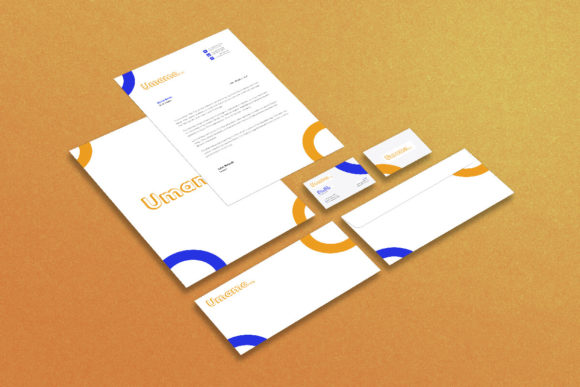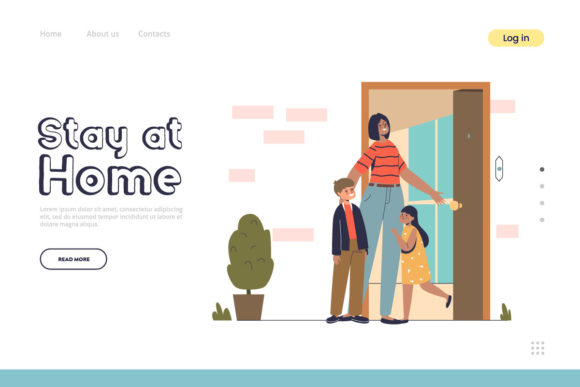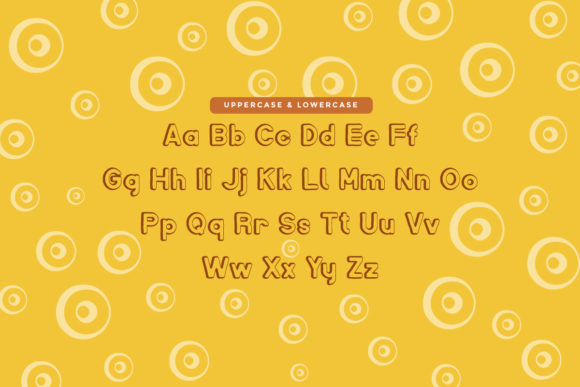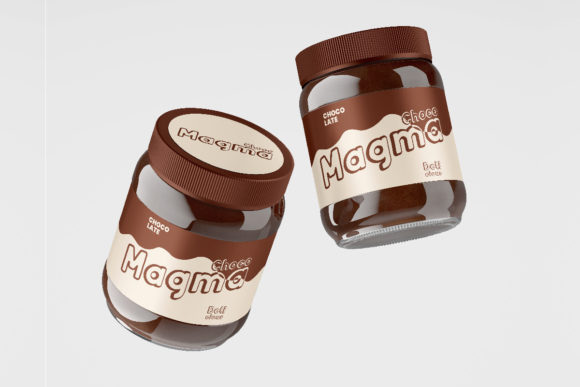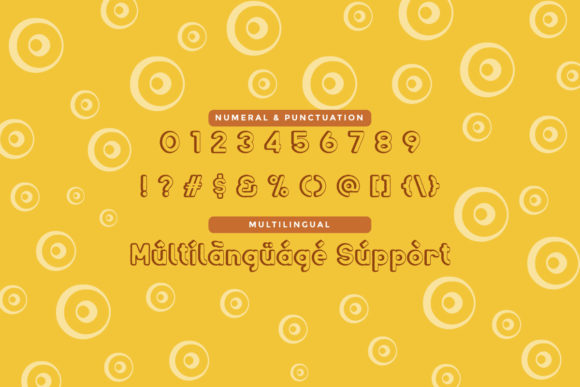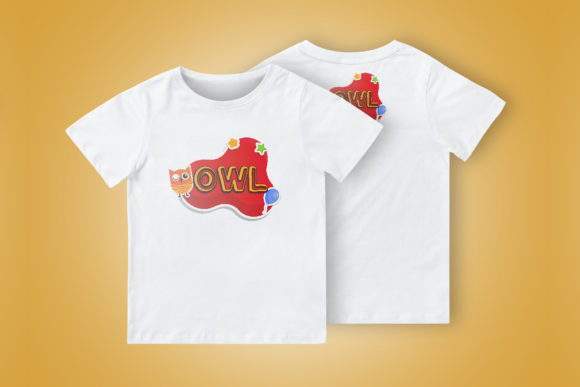
The Joy of Hand-Drawn Typography: Introducing the Cartoonery Font
Do you remember the thrill of creating comics as a kid, letting your imagination run wild with bold lines and vibrant colors? For many of us, this creative outlet sparked a lifelong passion for art and self-expression. As designers, we’re always on the lookout for typography that captures this same sense of whimsy and fun.
Enter the Cartoonery Font, a one-of-a-kind comic font that’s perfect for bringing your most playful projects to life. With its unique shape writing style effect, this font is sure to add a touch of magic to anything from children’s books to product designs. Whether you’re working on a game, a school project, or a fun merchandise campaign, the Cartoonery Font is a valuable addition to your design toolkit.
Cartoonery Font Key Features
- Font Family: Cartoonery Font is a unique, hand-drawn font that includes 3 variations: Cartoonery Regular, Cartoonery Bold, and Cartoonery Outline.
- Character Count: The font includes over 200 characters, including uppercase and lowercase letters, numbers, and special characters.
- Unique Characteristics: Cartoonery Font features a playful, hand-drawn style with intricate details and textures, making it perfect for creating whimsical and engaging designs.
Cartoonery Font Review
Overall, I think Cartoonery Font is a fun and playful addition to any design project. ✨ The rounded edges and bold lines give it a quirky, hand-drawn feel that’s sure to grab attention. The font is highly customizable, allowing you to tweak the weights and styles to fit your needs.
- ✨ Great for creating eye-catching headlines and titles
- ✨ Highly customizable with various weights and styles
- ✨ Unique, hand-drawn feel that sets it apart from other fonts
However, there are a few limitations to consider: ⚠️ The font can be a bit too bold and overpowering at times, making it difficult to read in smaller sizes. Additionally, the font’s quirks and irregularities may not be suitable for all design projects, particularly those that require a more formal or professional tone.
While Cartoonery Font is not perfect, I think it’s a great choice for designers looking to add a bit of whimsy and personality to their projects. With some careful consideration of the font’s limitations, I think it can be a valuable addition to any design toolkit.
Tips for Getting the Most Out of Cartoonery Font
Cartoonery Font is perfect for creating playful and whimsical designs. To get the most out of it, try using it in combination with bold lines, bright colors, and fun illustrations. You can also experiment with different font sizes and styles to add visual interest to your design.
Cartoonery Font is ideal for creating designs for kids, such as children’s books, educational materials, and party invitations. It’s also perfect for creating playful and humorous designs for adults, such as social media graphics and advertisements.